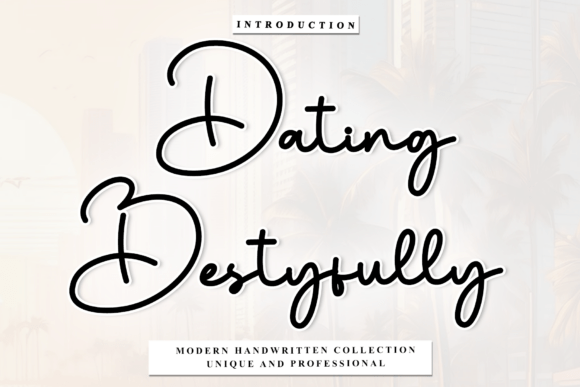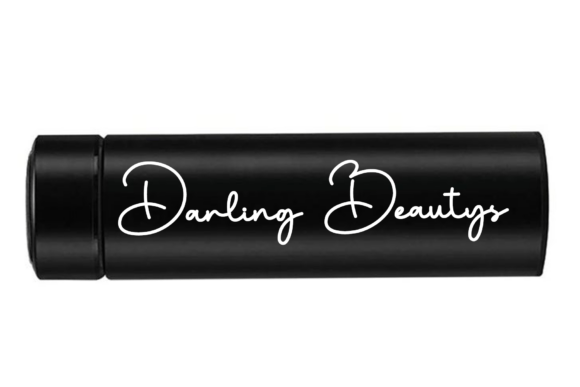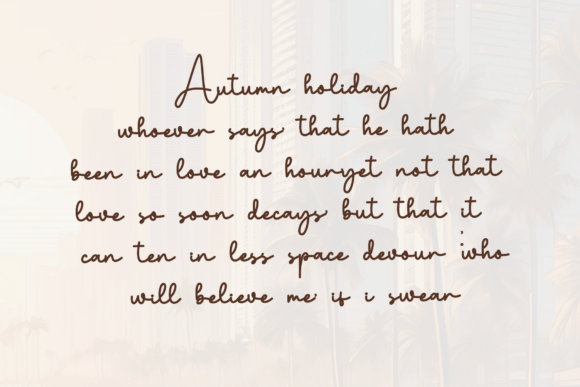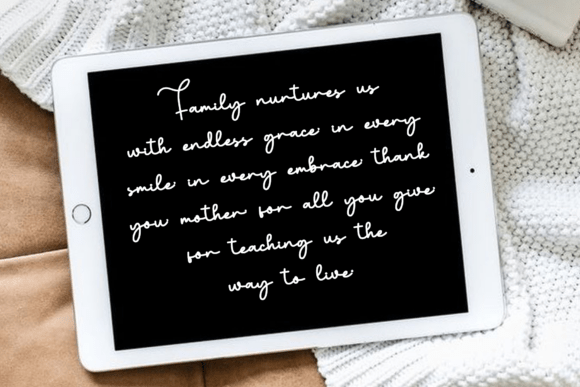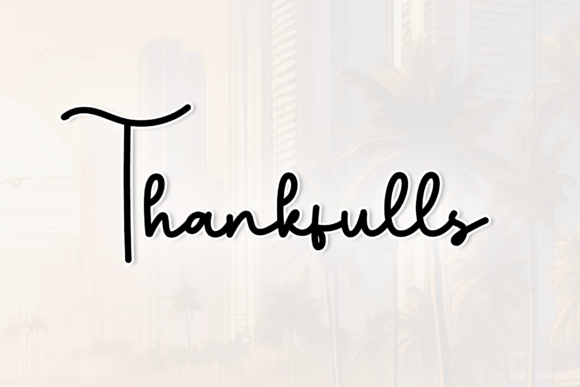
Meet Your New Signature Style: Dating Bestyfully Font
Have you ever stared at a beautifully crafted food label, wondering what magic happened behind the scenes? For designers, the perfect font can be the secret ingredient that elevates a brand from ordinary to extraordinary. And that’s exactly what Dating Bestyfully Font brings to the table – a sophisticated and rhythmic script font that exudes artisanal charm.
Designed to balance calligraphic style with a warm, organic aesthetic, Dating Bestyfully Font is a game-changer for those seeking a customized, high-end look. Its sweeping, looping ascenders create a sense of artistry that’s perfect for upscale branding, product packaging, and creative editorial titles. Whether you’re a seasoned pro or just starting out, this font is a valuable addition to any designer’s toolkit – and a great way to add a touch of elegance to your next project.
Dating Bestyfully Font Key Features
- Unique Characteristics: The font features a playful, handwritten style with cursive connections and flourishes, making it perfect for romantic and dating-related designs.
Dating Bestyfully Font Review
I recently had the chance to work with the “Dating Bestyfully Font” and I must say it’s a unique and quirky addition to any project. Here’s what I liked about it:
- ✨ Customized charm: The font has a playful, handwritten feel that immediately catches the eye. It’s perfect for projects that need a personal touch.
- ✨ Versatility: While it’s marketed as a dating font, I found it to be surprisingly versatile. It works well for social media headers, blog posts, and even product packaging.
- ✨ Character set: The font comes with a wide range of characters, including punctuation and special symbols, which is a nice touch.
However, there are a few limitations I encountered:
- ⚠️ Limited bold and italic options: While the font is great for headings, it’s not ideal for situations where you need to emphasize text. The bold and italic styles can look a bit rough.
- ⚠️ May not be suitable for formal projects: The font’s playful nature may not be suitable for more formal projects or clients who prefer a more professional look.
Overall, I’d say the “Dating Bestyfully Font” is a fun and creative addition to any project, but it may not be the best choice for every situation. With a bit of restraint and clever use, it can be a great asset for designers looking to add some personality to their work.
The Dating Bestyfully Font is ideal for:
- Dating website and app designs
- Relationship-themed social media graphics